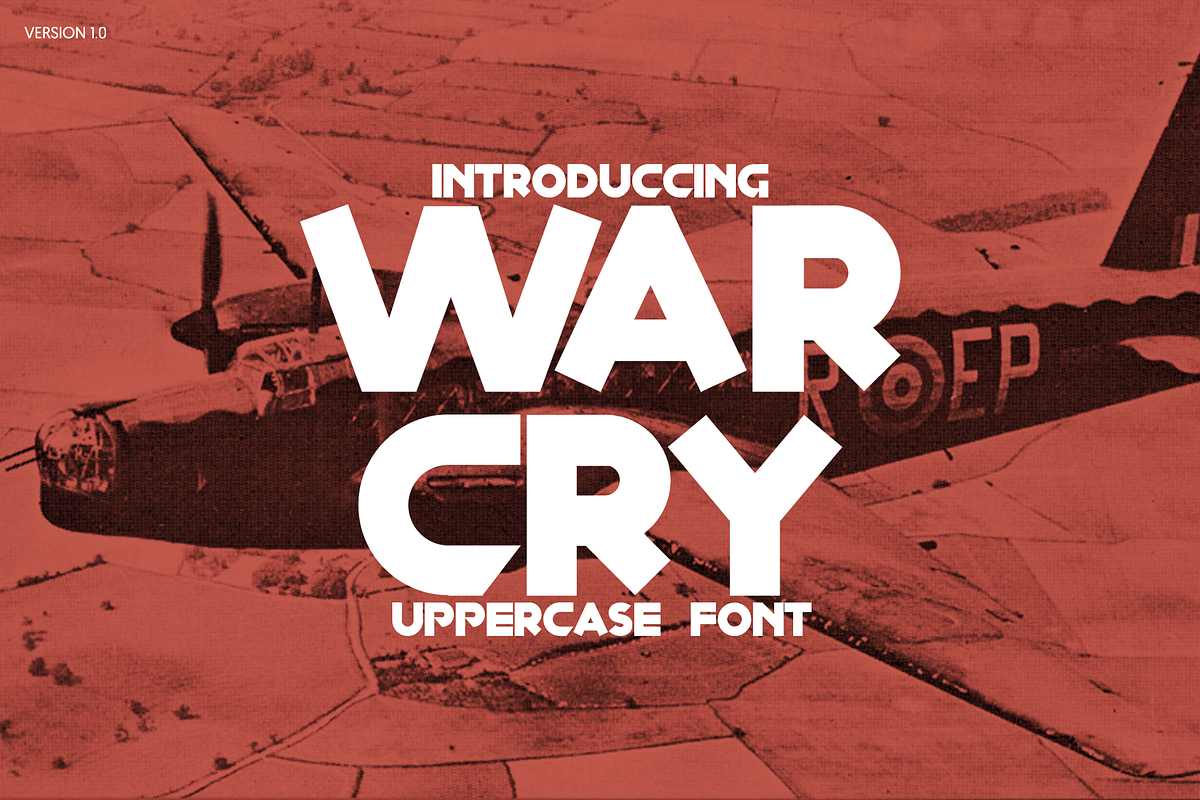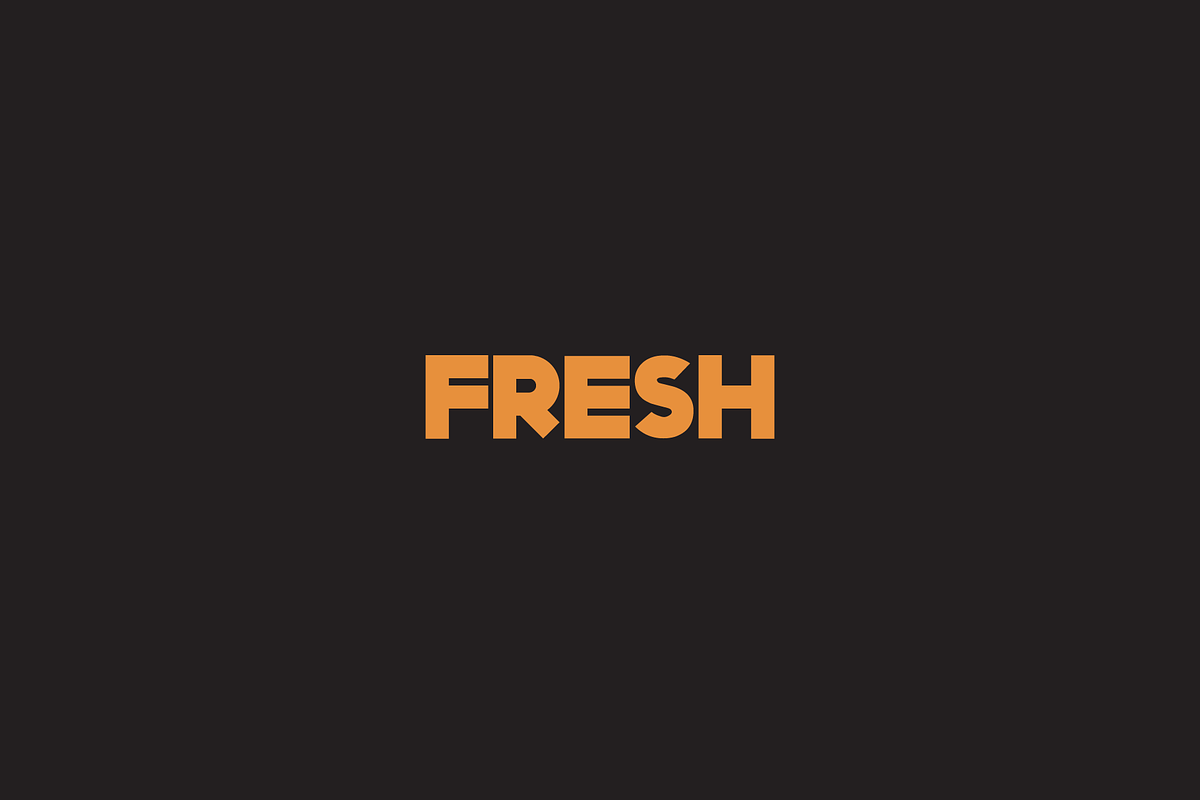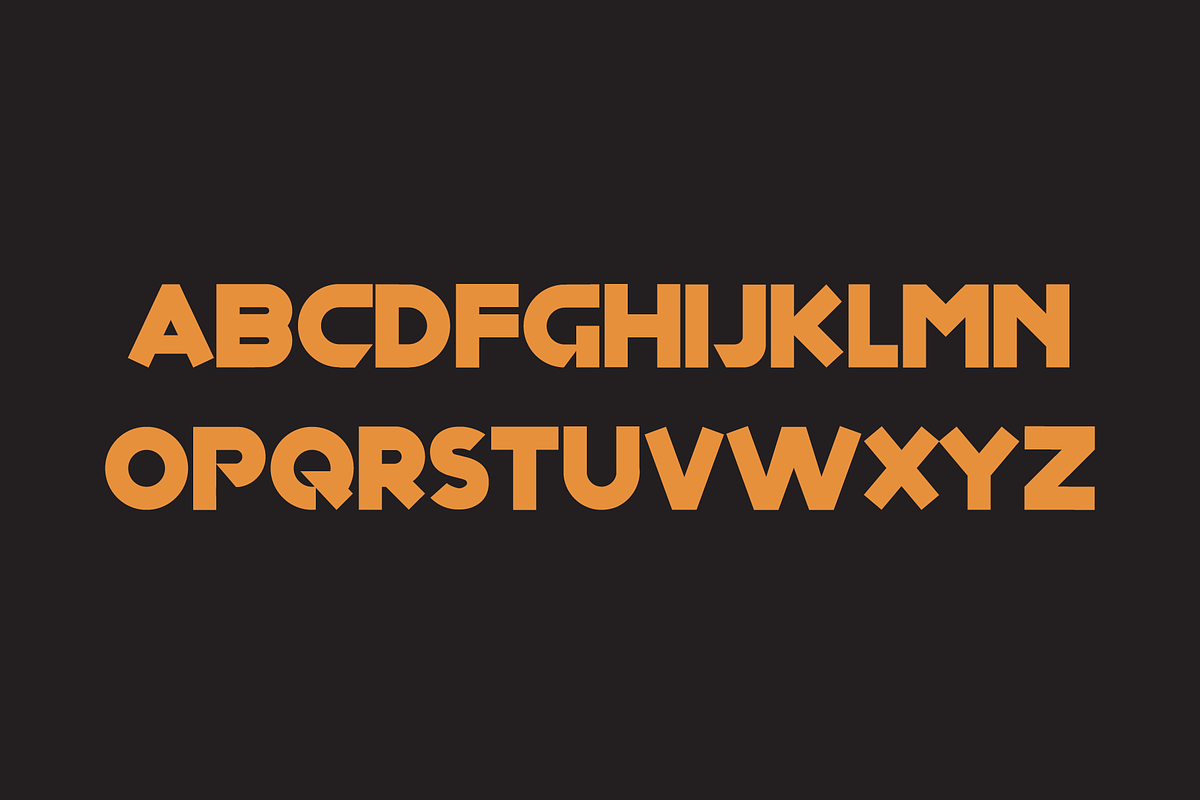
War Cry Font
introducing War Cry Font
War Cry works great in any branding, logos, magazines,
Uppercase font. Try it or tested in Uppercase.
Why War Cry Font is worth a look
War Cry Font by Toledo Vector Shop fits naturally into Branding, posters, packaging, typography.